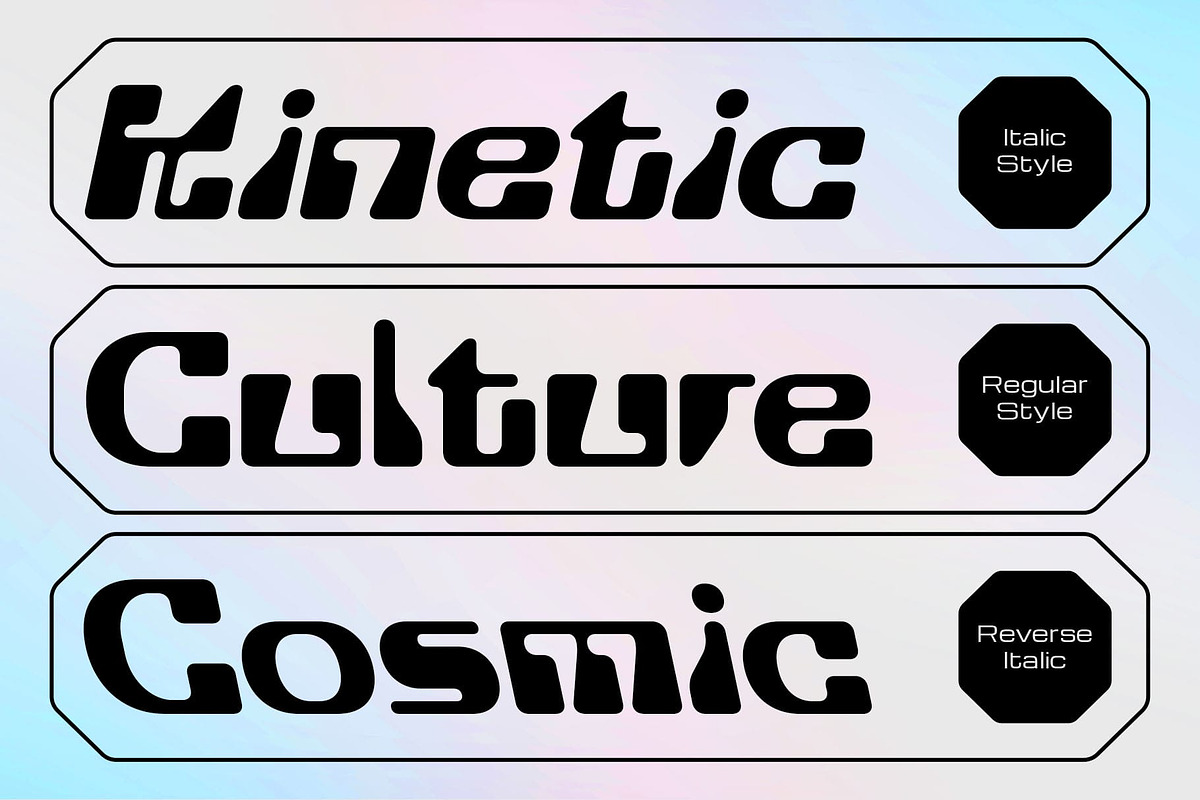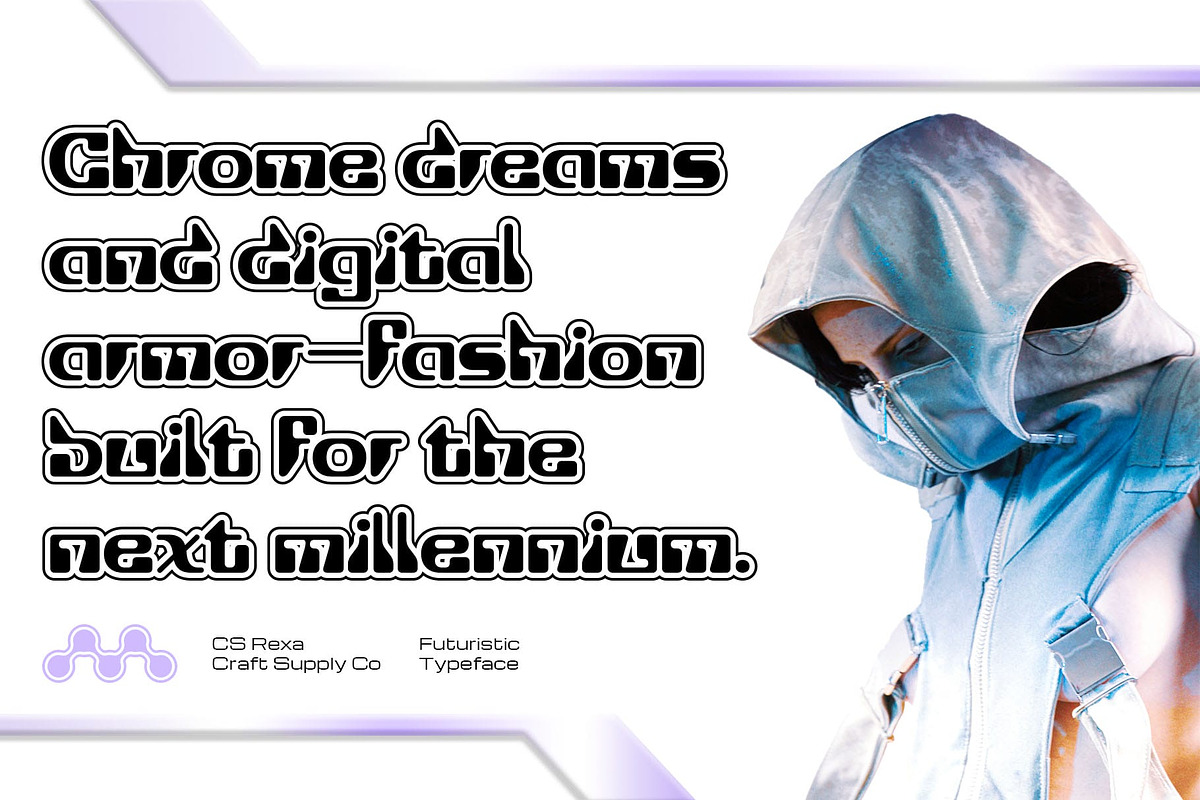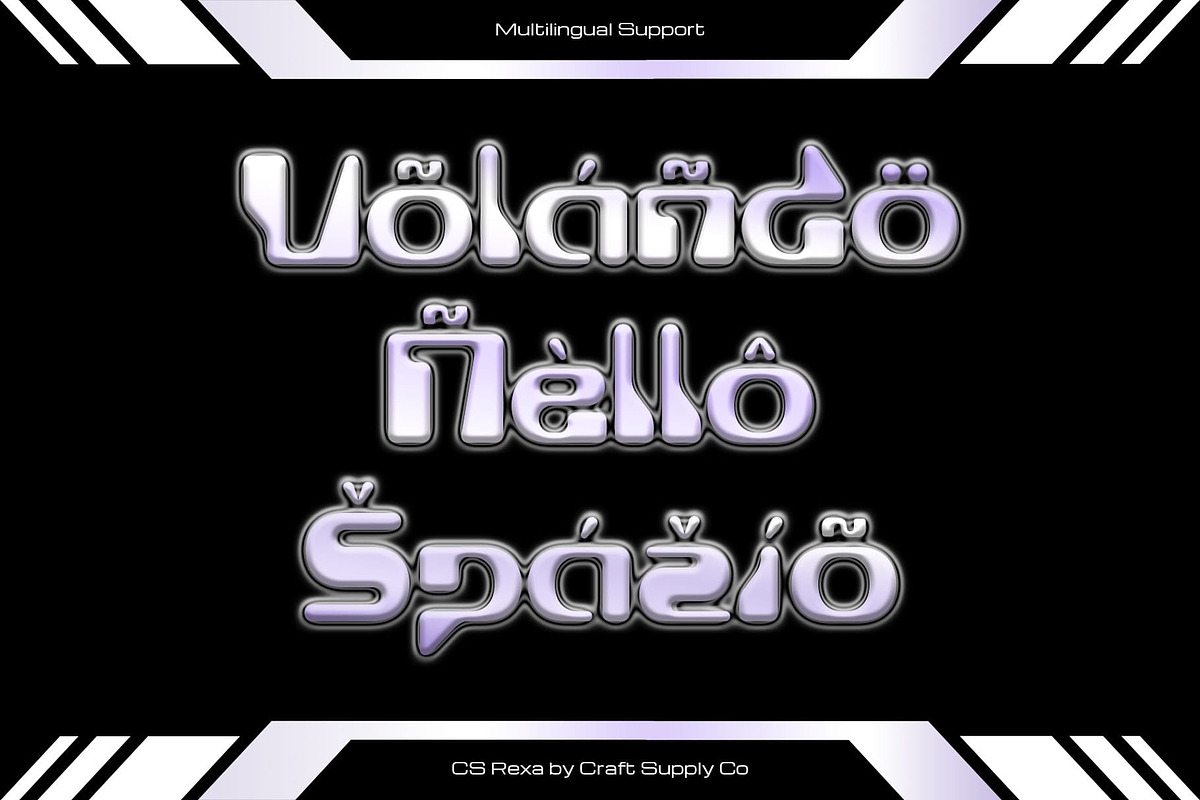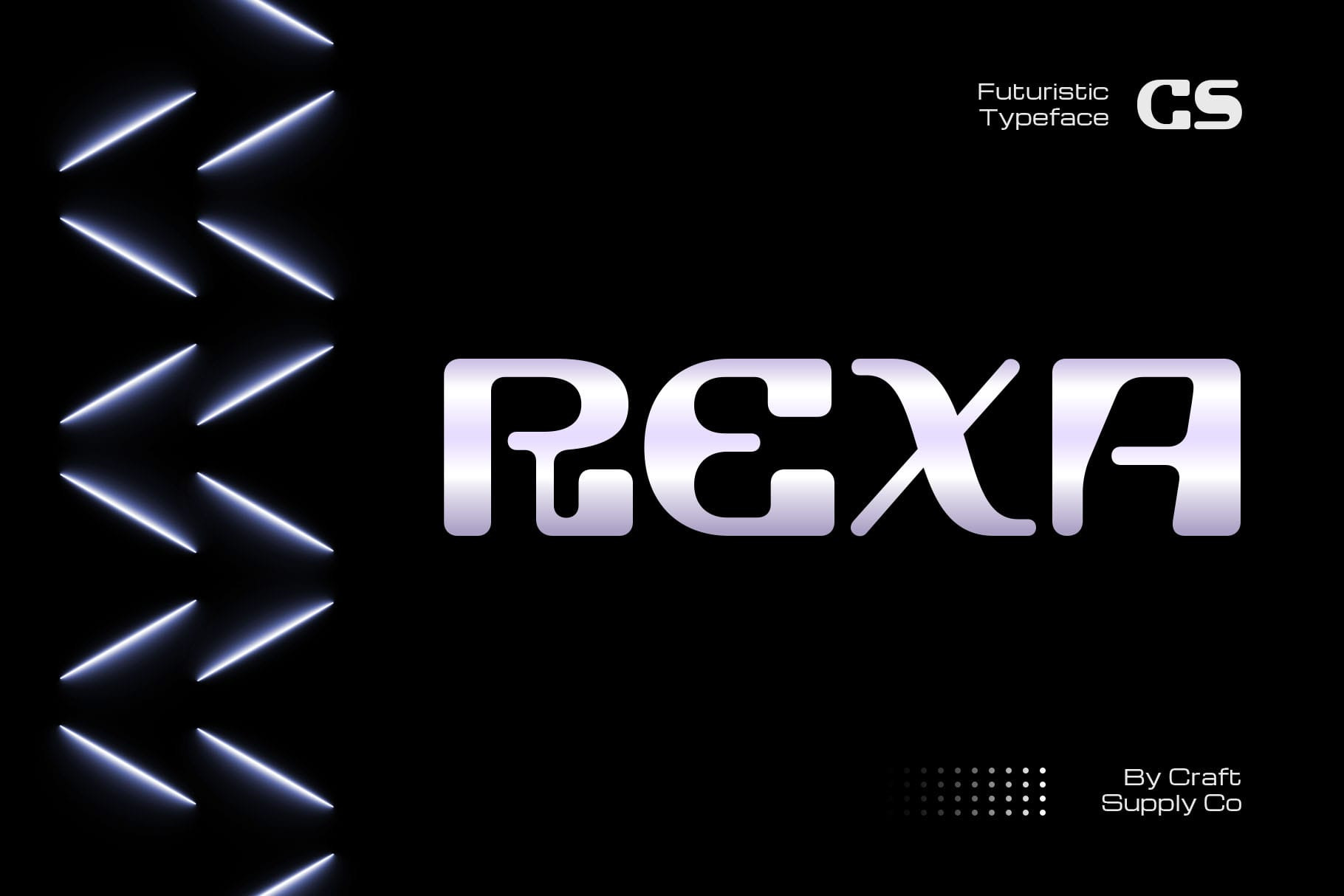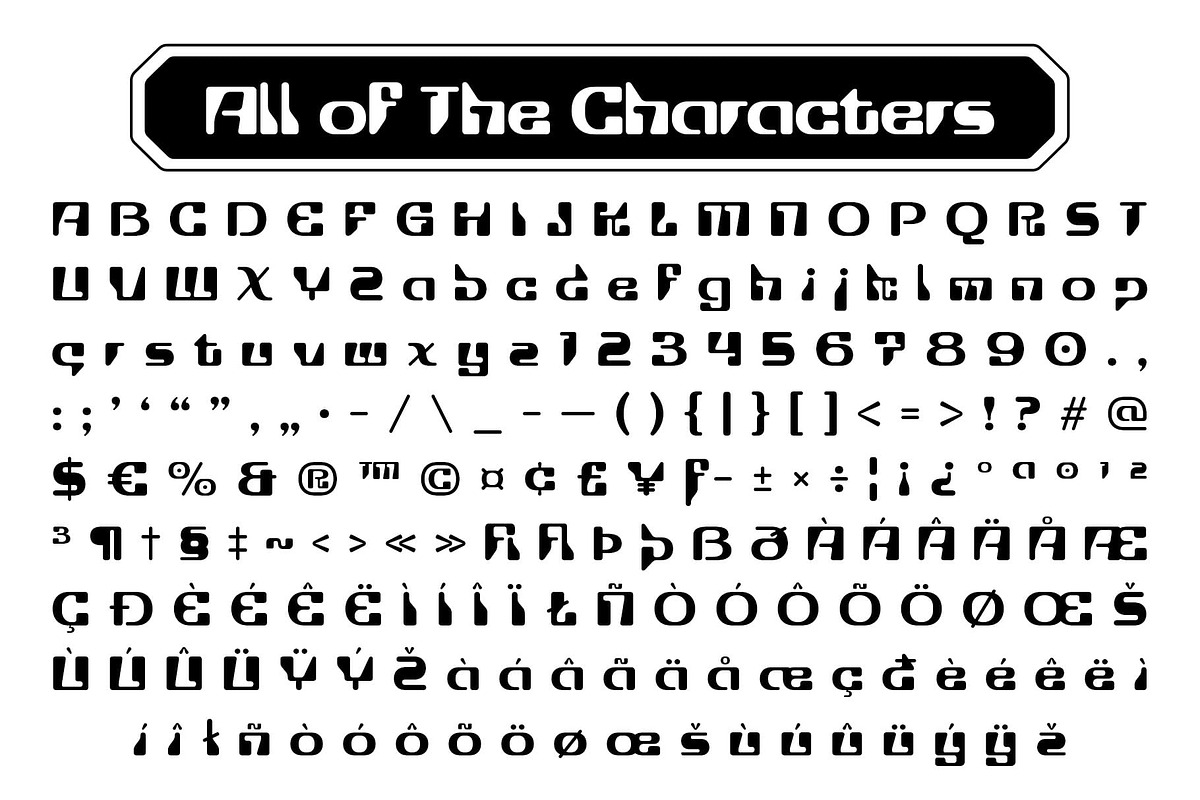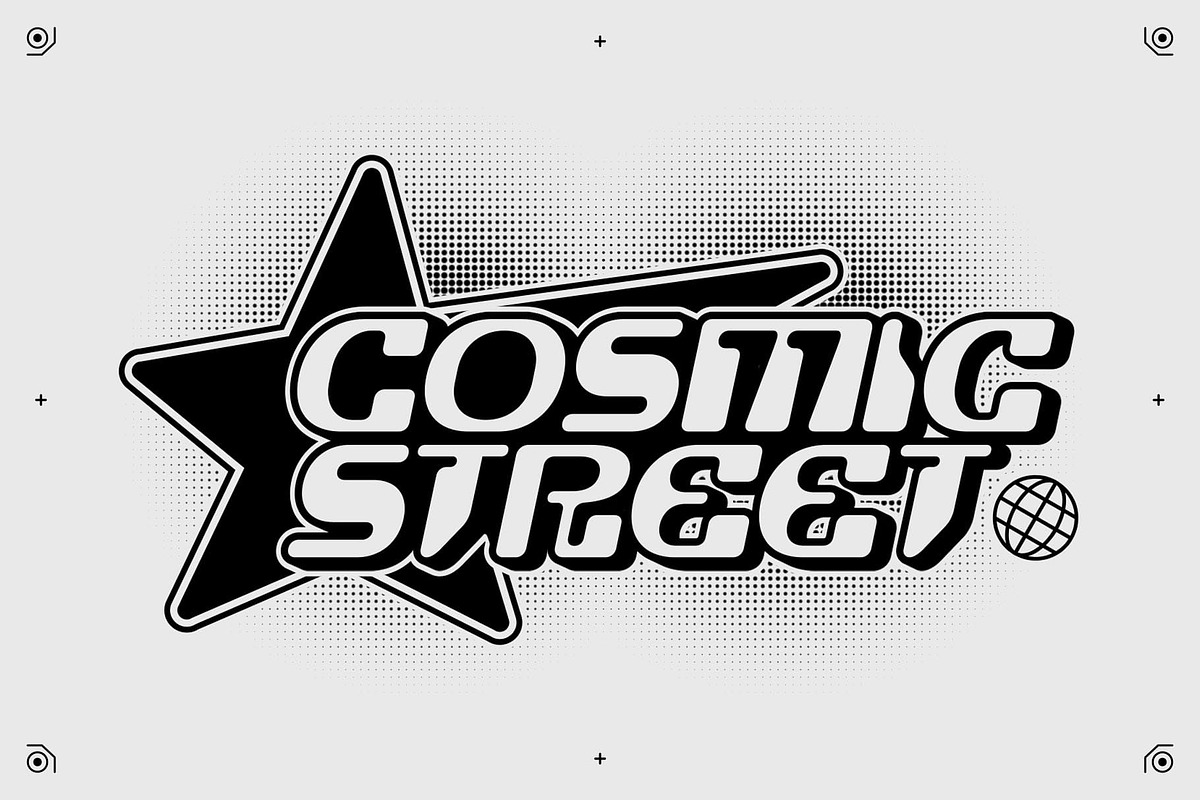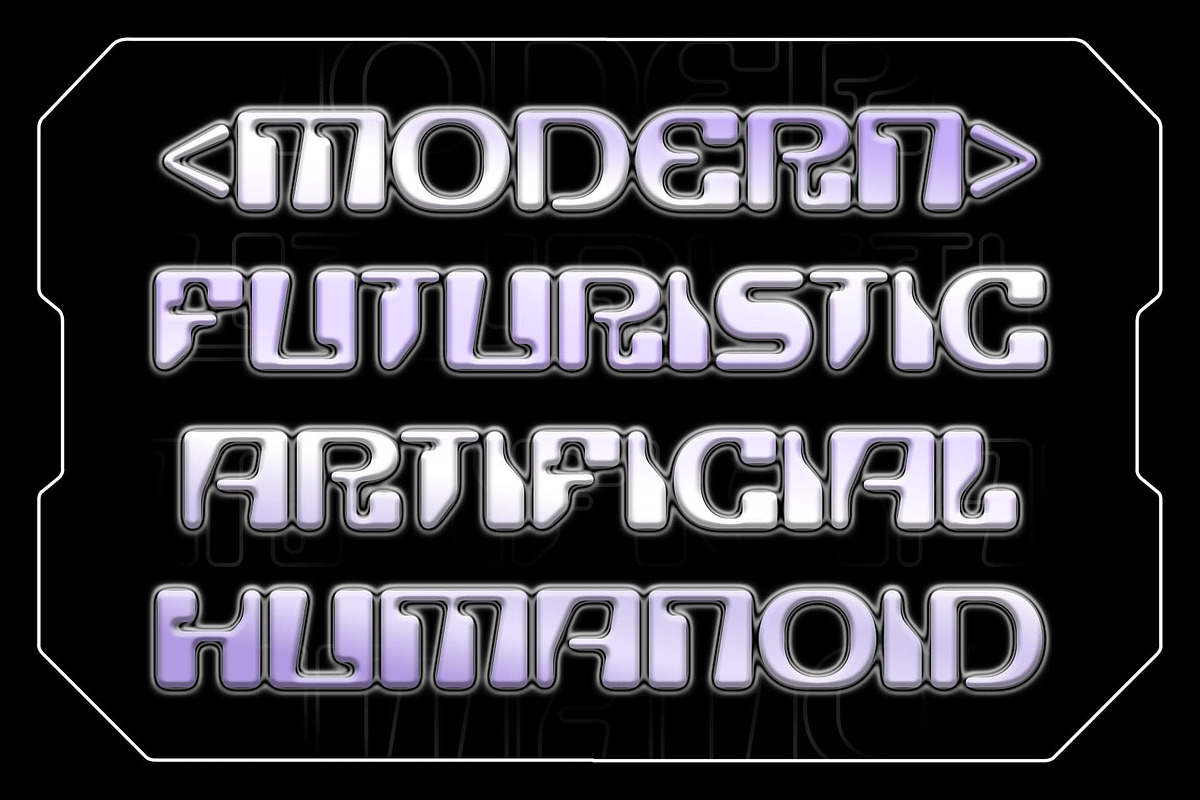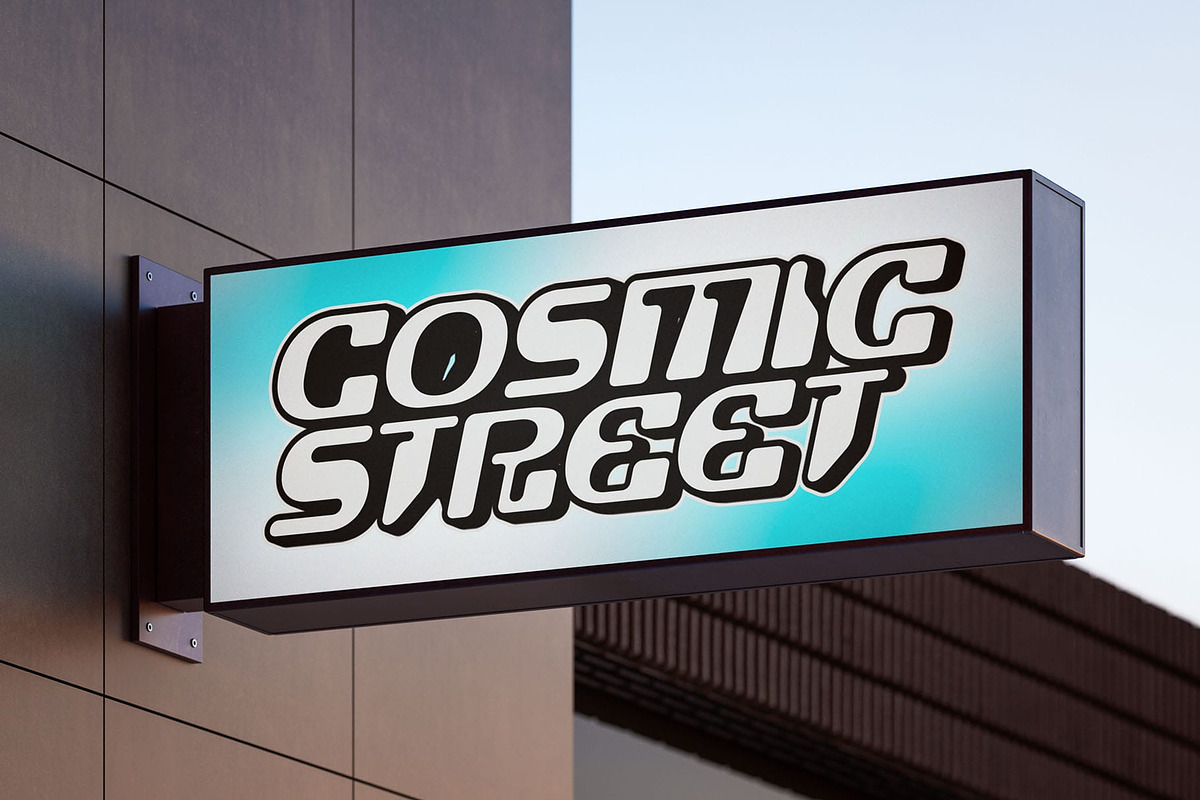
CS Rexa – Futuristic Font
CS Rexa – Futuristic Font with Y2K Energy
Futuristic Design with Y2K Style CS Rexa is a futuristic font that channels the bold spirit of Y2K design. Its slightly rounded lines give it a sleek and approachable feel, blending retro-futuristic charm with modern precision. The result is a typeface that feels both nostalgic and forward-looking, perfect for projects that demand innovation with personality.
Rounded Lines with a Modern Tech Feel What sets CS Rexa apart is its subtle use of rounded details. These soften the geometric structure, creating a balance between technological sharpness and visual flow. This design choice makes the font highly versatile conveying modern clarity while still feeling expressive and stylish.
Perfect for Games, Music, and Digital Media From game visuals and digital interfaces to posters and music branding, CS Rexa shines across creative industries. Its futuristic energy makes it ideal for sci-fi, electronic, and tech driven projects, while its Y2K influence resonates with today’s design trends. Whether on-screen or in print, it brings a bold and memorable voice.
A Bold Typeface for Creative Futures CS Rexa is not just a font it’s a design tool that bridges eras. With its combination of modern technological structure and Y2K-inspired curves, it adapts effortlessly to diverse creative projects. Use it when you want your typography to stand out with futuristic clarity and stylish individuality.